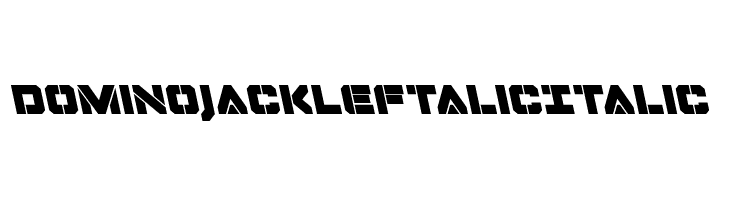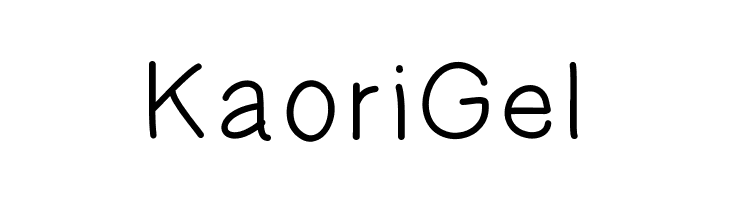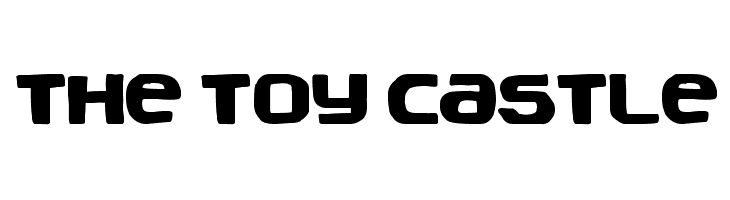
A playful handwritten font with rounded, consistent strokes and a casual feel.
A bold, 3D font with sharp edges and a modern, impactful style.
A whimsical, illustrated font with bold, rounded characters featuring integrated character designs.
A bold, geometric font with a modern and minimalistic style.
A bold, modern font with rounded, geometric characters.
A bold, italic handwritten font with a dynamic and fluid style.
A bold, geometric font with a modern, condensed style.
A futuristic, italic font with sharp, angular lines and a high-tech aesthetic.
A bold stencil font with geometric cuts and a modern, industrial style.
A playful, hand-drawn font with a sketched, textured appearance.